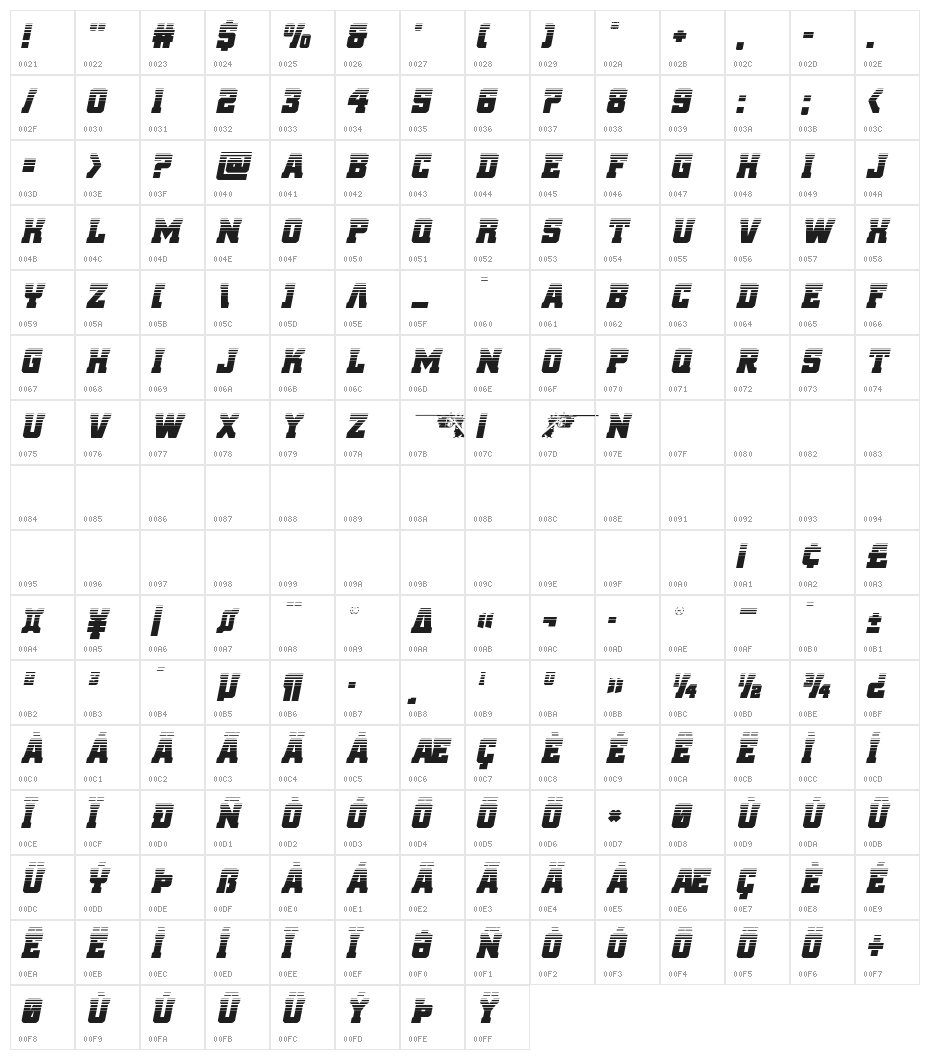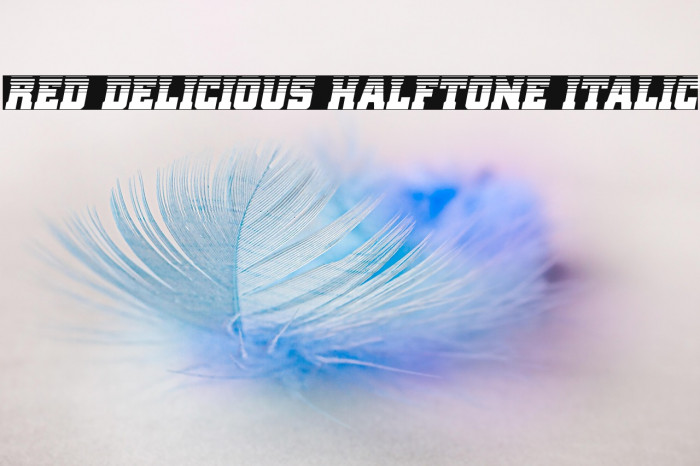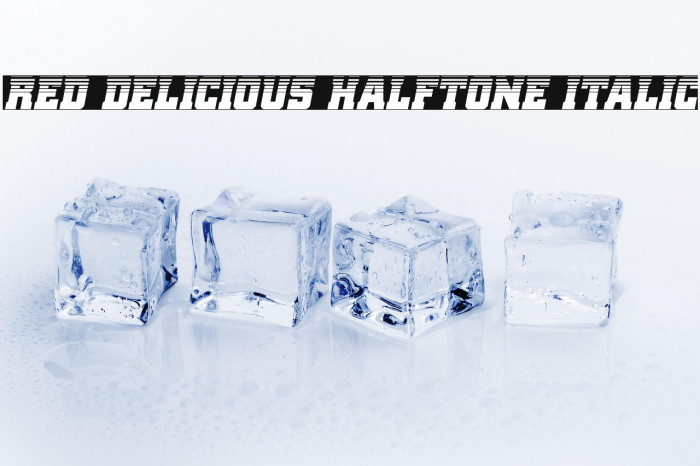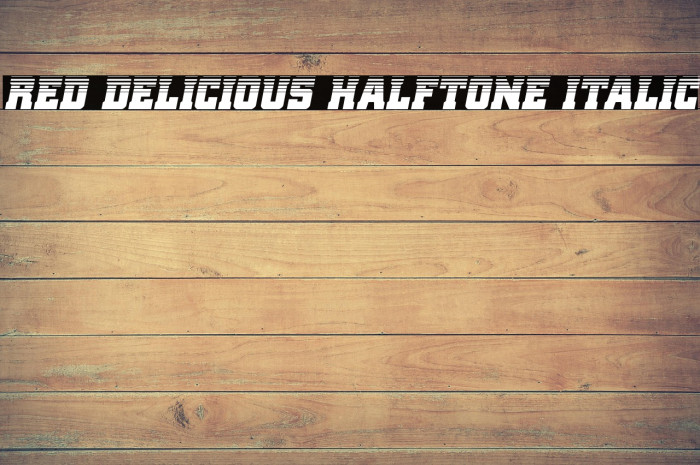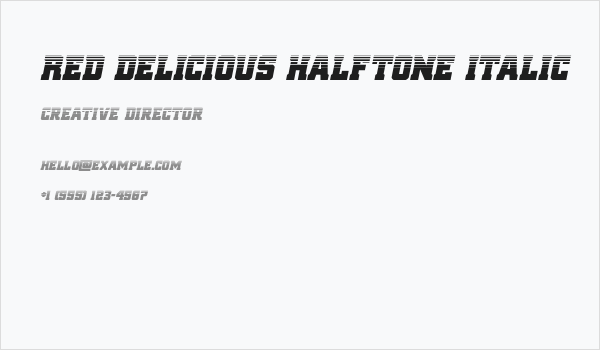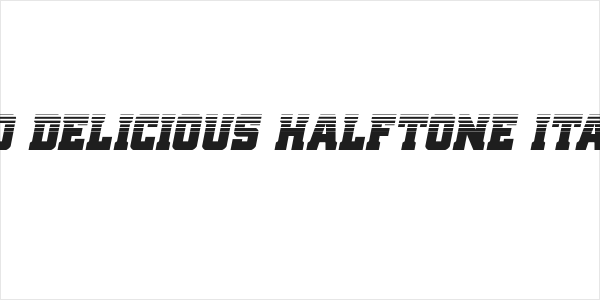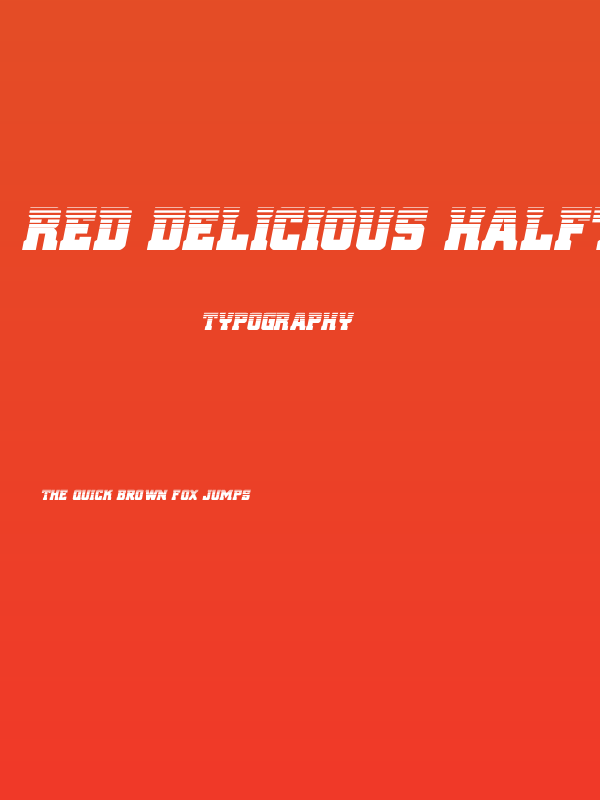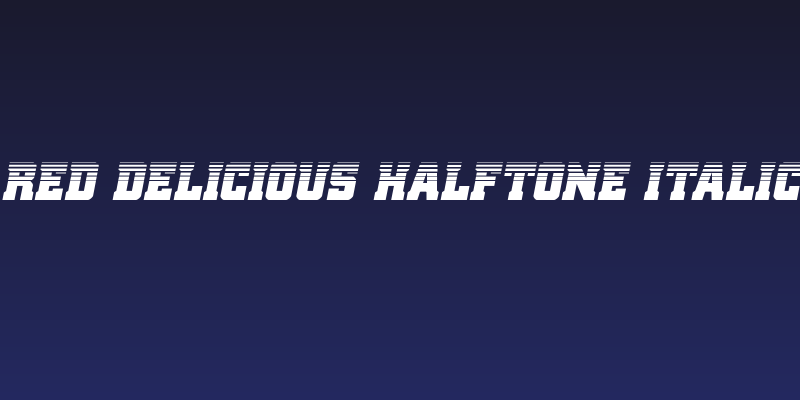
Red Delicious Halftone Italic Font
Red Delicious Halftone Italic Description
This font features a bold and dynamic design with a halftone effect that gives it a sense of motion and energy. The uppercase letters are robust and wide, with a unique striped pattern that adds depth and texture. The italic style enhances the sense of speed and movement, making it ideal for attention-grabbing headlines. The numbers and special characters maintain the same boldness and striped design, ensuring consistency across all elements. This font is perfect for projects that require a modern and edgy look, such as sports branding, posters, and dynamic advertisements.
| Proposed Projects | Ideal for sports branding, dynamic posters, and modern advertisements. |